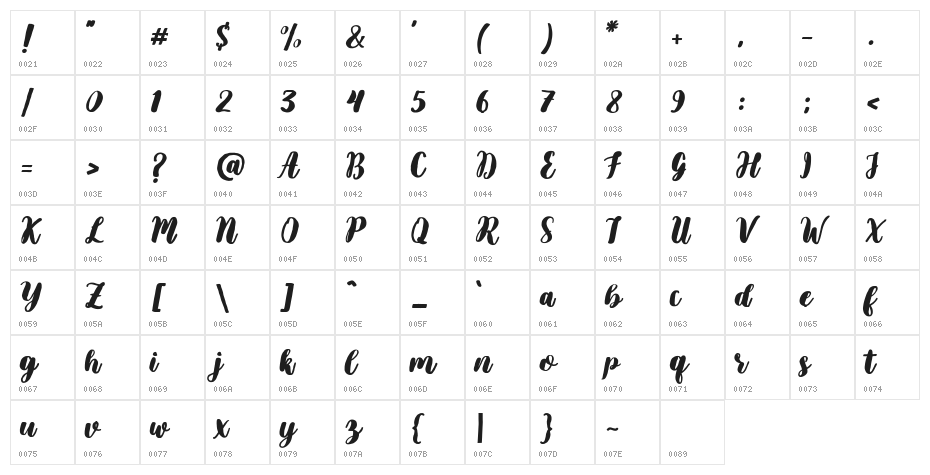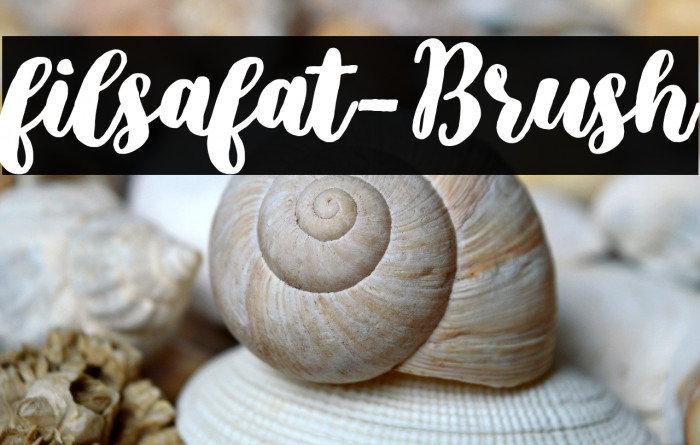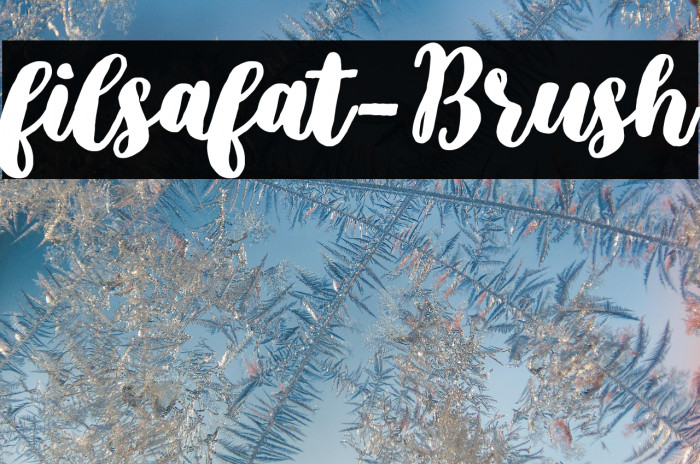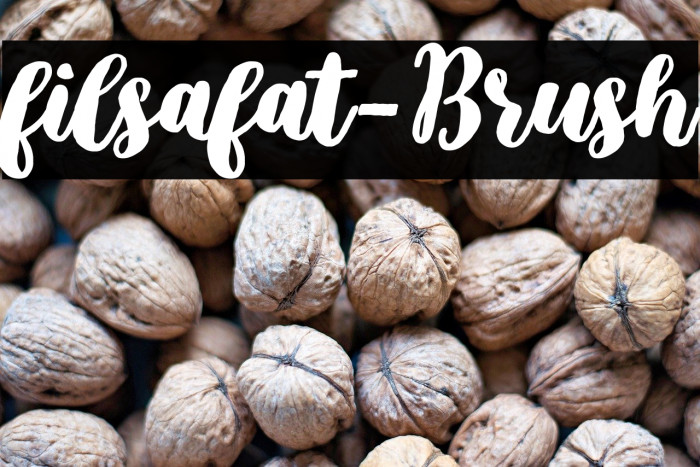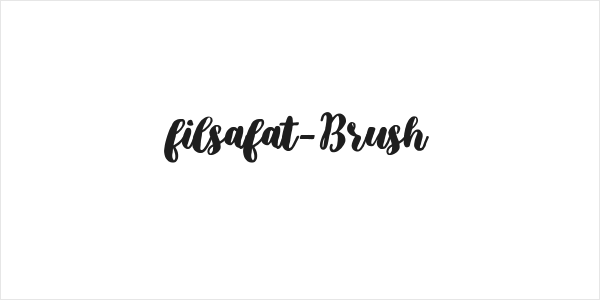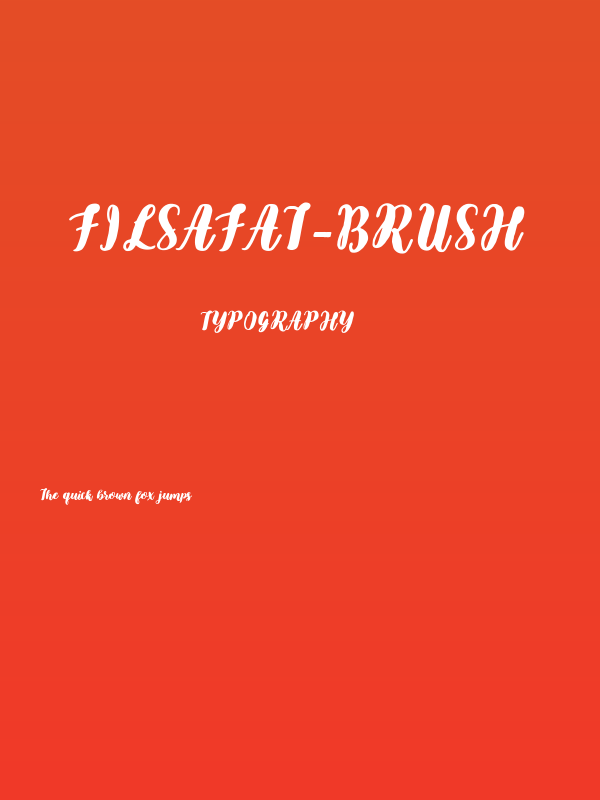
filsafat-Brush Font
filsafat-Brush Description
This font exudes a bold and expressive style, characterized by its brush-like strokes and fluid, cursive design. The uppercase letters are elegantly crafted with sweeping curves and a dynamic flow, while the lowercase letters maintain a consistent rhythm, enhancing readability. The numerals and special characters are equally expressive, maintaining the font's cohesive aesthetic. This font's bold presence makes it ideal for creating eye-catching designs that require a touch of artistic flair. Its brush script style is reminiscent of hand-lettered signage, offering a personal and creative touch to any project.
| Proposed Projects | Ideal for branding, packaging, posters, invitations, and any project requiring a personal, artistic touch. |